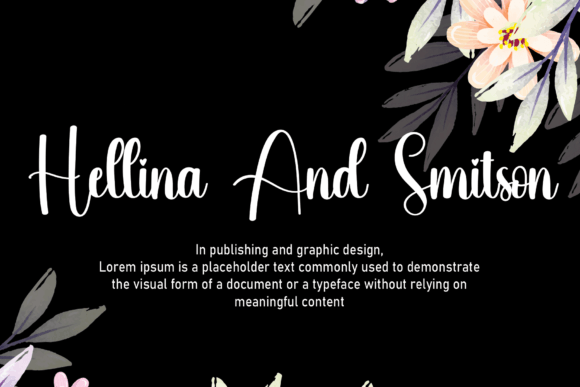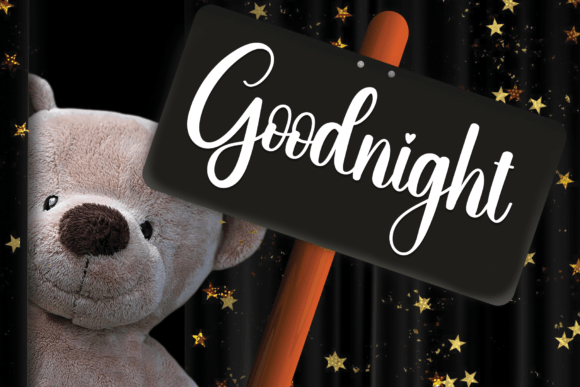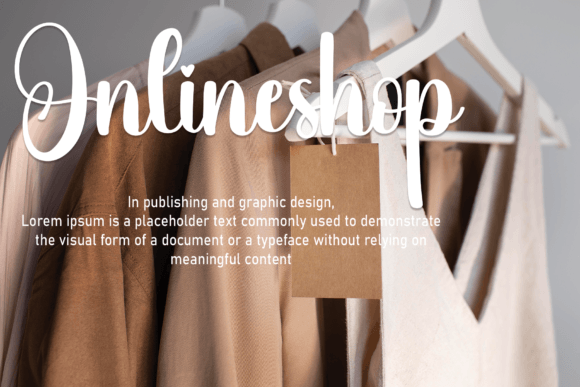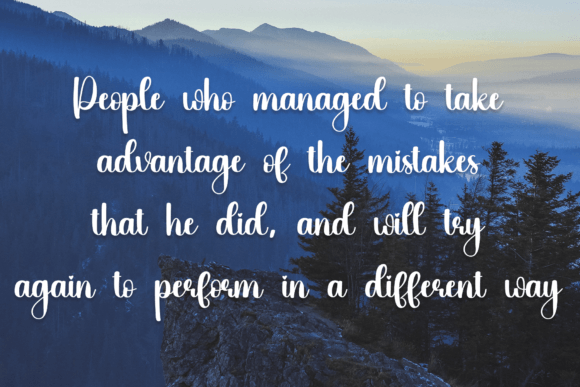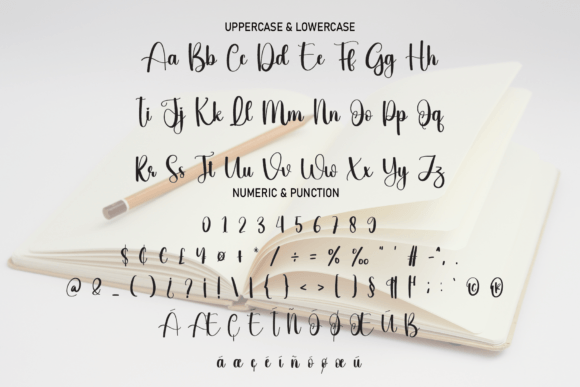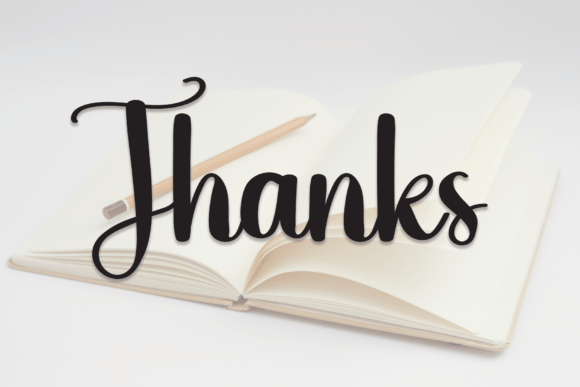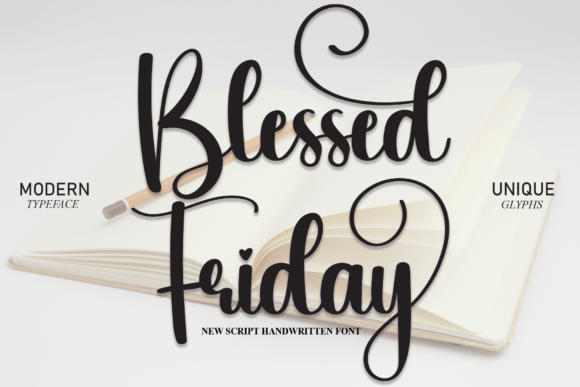
Blessed Friday Font: A Romantic and Sweet Calligraphy Typeface
Are you a designer or crafter looking for a unique and elegant font to add a touch of romance and sweetness to your projects? Look no further than the Blessed Friday Font, a beautiful calligraphy typeface that is sure to capture your heart.
What is Blessed Friday Font?
Blessed Friday Font is a romantic and sweet calligraphy typeface designed with characters that dance along the baseline, giving it a casual yet elegant touch. This lovely font is perfect for a variety of design projects, from wedding invitations and announcements to branding and packaging.
Key Features of Blessed Friday Font
• Romantic and Sweet: Blessed Friday Font exudes a sense of romance and sweetness, making it perfect for projects that require a touch of elegance and sophistication.
• Calligraphy Style: This font features a beautiful calligraphy style that adds a personal and handmade touch to your designs.
• Casual yet Elegant: The characters in Blessed Friday Font dance along the baseline, giving it a casual yet elegant feel that is sure to impress.
• Versatile: This font is versatile and can be used for a variety of design projects, from digital to print.
Why Choose Blessed Friday Font?
There are many reasons why designers and crafters choose Blessed Friday Font for their projects. Here are a few:
• Unique and Eye-Catching: Blessed Friday Font is a unique and eye-catching font that is sure to grab attention and make your designs stand out.
• Easy to Read: Despite its elegant and cursive style, Blessed Friday Font is easy to read, making it perfect for body text and headlines.
• Customizable: This font can be customized to fit your design needs, from adjusting the font size and color to adding effects and textures.
How to Use Blessed Friday Font
Using Blessed Friday Font is easy and straightforward. Here are a few tips on how to get the most out of this beautiful font:
• Pair it with Other Fonts: Blessed Friday Font pairs well with other fonts, including serif and sans-serif fonts. Experiment with different font combinations to find the perfect look for your design.
• Use it for Headlines and Titles: This font is perfect for headlines and titles, where its elegant and cursive style can really shine.
• Add Effects and Textures: Consider adding effects and textures to Blessed Friday Font to give it a more personalized and unique look.
Design Ideas Using Blessed Friday Font
Blessed Friday Font is a versatile font that can be used for a variety of design projects. Here are a few ideas to get you started:
• Wedding Invitations: Use Blessed Friday Font to create beautiful and elegant wedding invitations that set the tone for a romantic and memorable day.
• Branding and Packaging: This font is perfect for branding and packaging projects, where its elegant and sophisticated style can help to elevate your brand.
• Stationery and Cards: Use Blessed Friday Font to create lovely stationery and cards that are perfect for special occasions.
Blessed Friday Font is a beautiful and elegant calligraphy typeface that is perfect for designers and crafters looking to add a touch of romance and sweetness to their projects. With its casual yet elegant touch, this font is versatile and can be used for a variety of design projects, from wedding invitations and branding to stationery and cards. Whether you’re looking for a unique and eye-catching font or a elegant and sophisticated one, Blessed Friday Font is sure to impress.